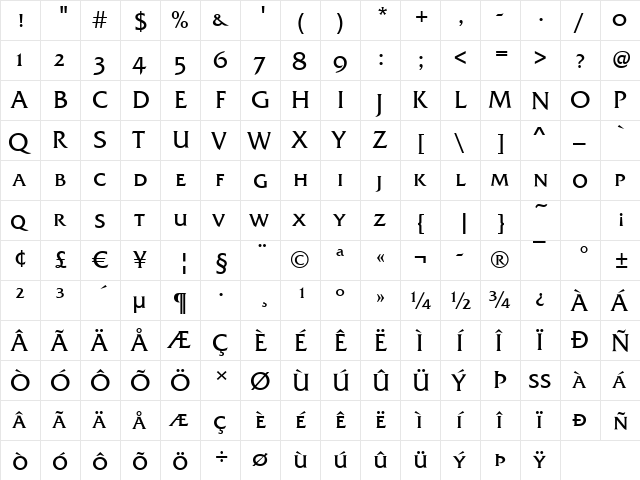
Fremont-Caps Regular
Design Context for Fremont-Caps Typeface
Fremont-Caps offers clean, dependable letterforms without strong stylistic allegiance, making it a practical choice for designers who need flexibility.